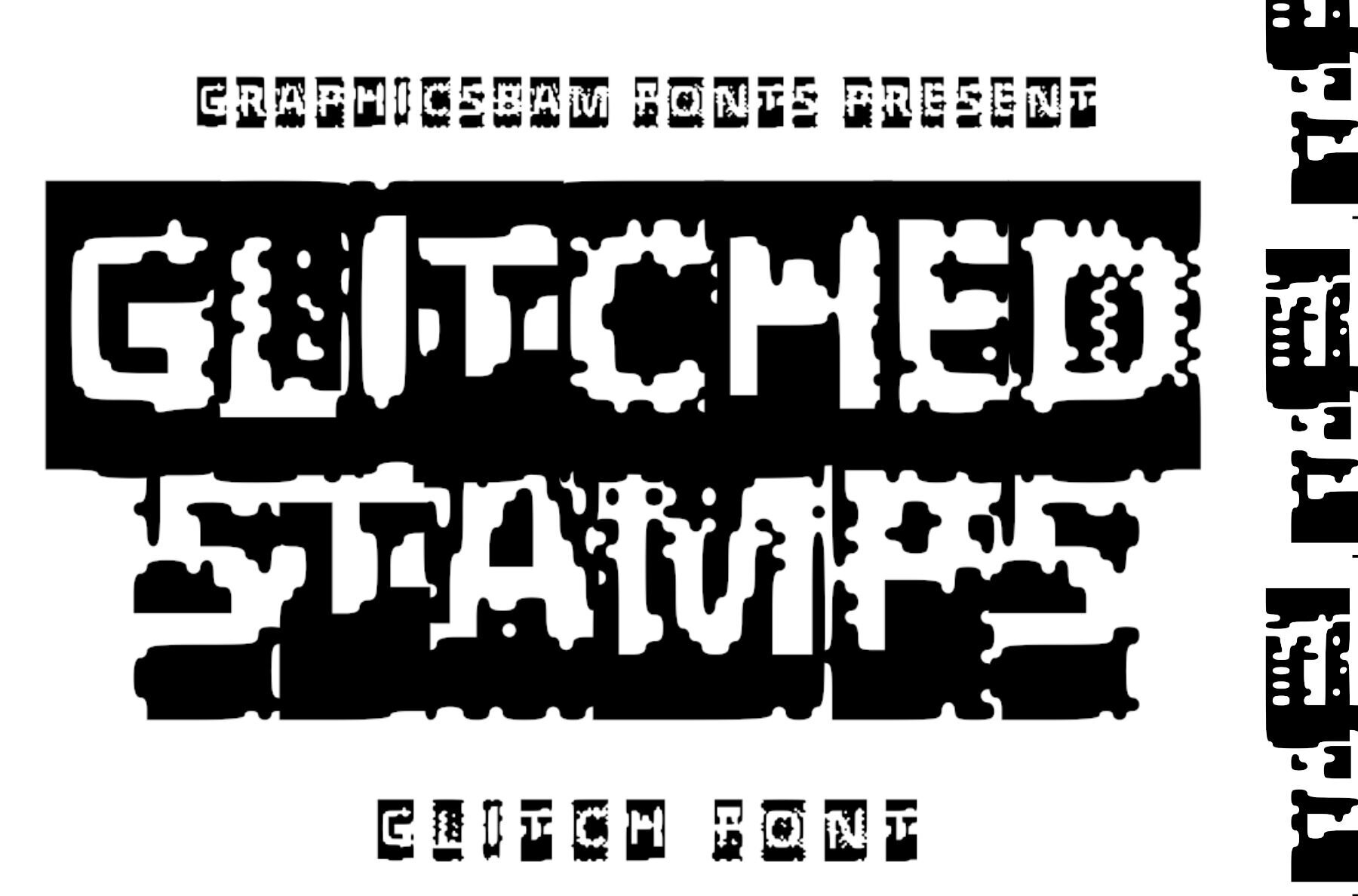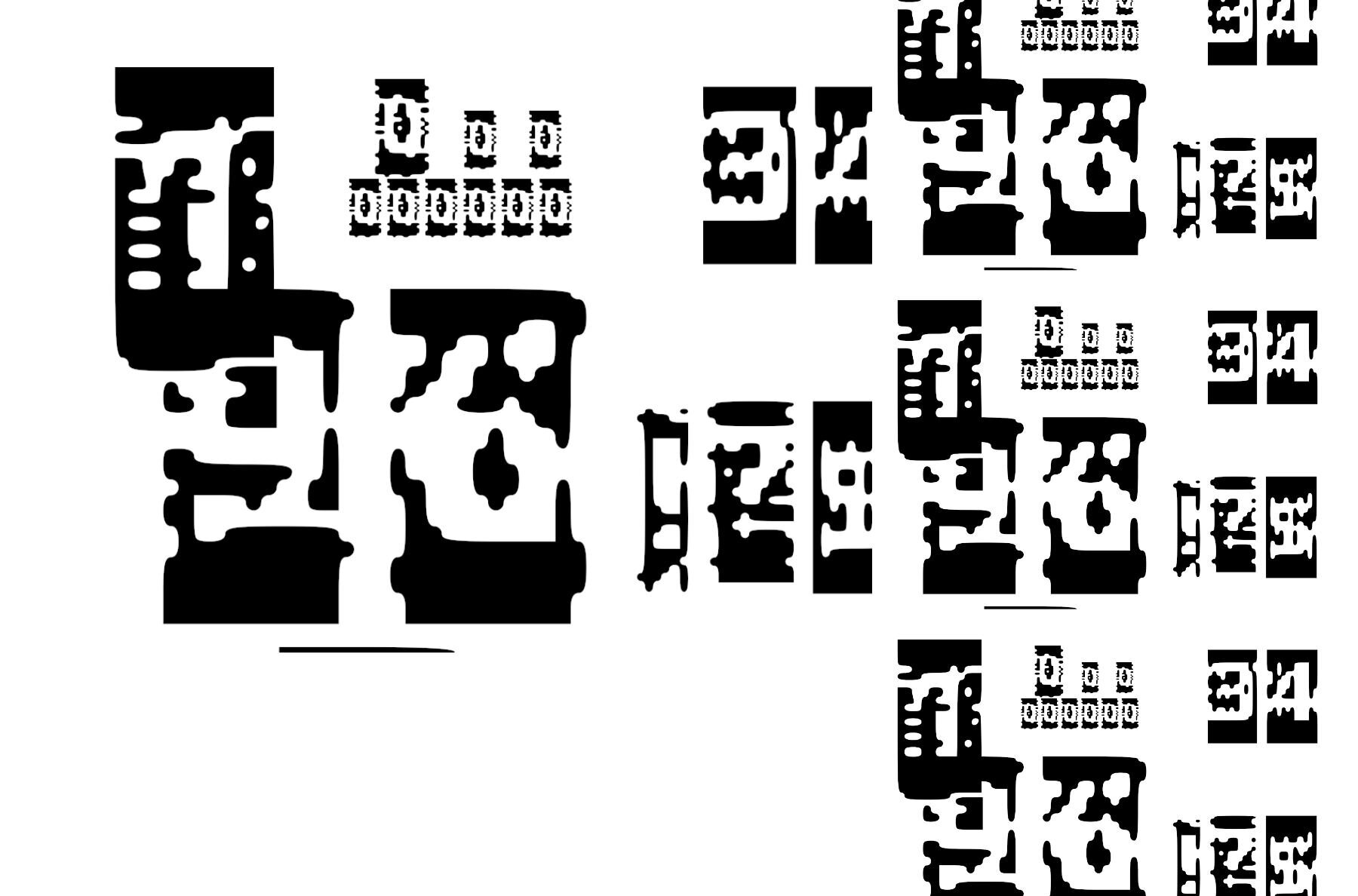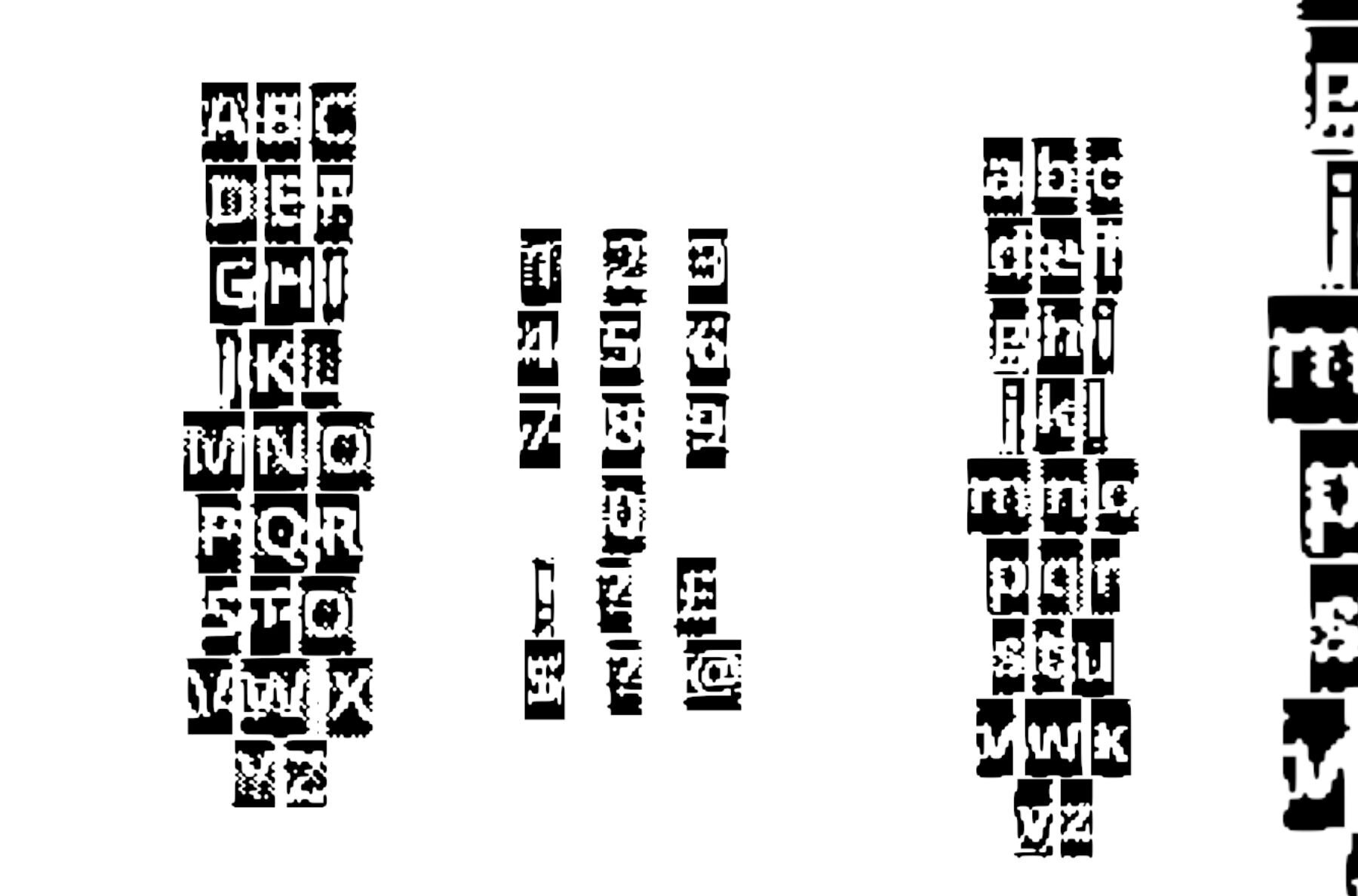
Glitch Stamps Font
Glitched Stamps Regular
Introducing Glitch Stamps, a distinctive display typeface that brings a dynamic edge to your creative projects. This versatile font offers both uppercase and lowercase characters, each encapsulated in striking blocks designed to make your designs truly stand out. Its unique, distorted appearance lends itself perfectly to projects in the digital realm, appealing especially to hackers, web enthusiasts, and glitch art aficionados. Elevate your designs with Glitch Stamps and captivate your audience with its unconventional style.Glitch Stamps Typeface